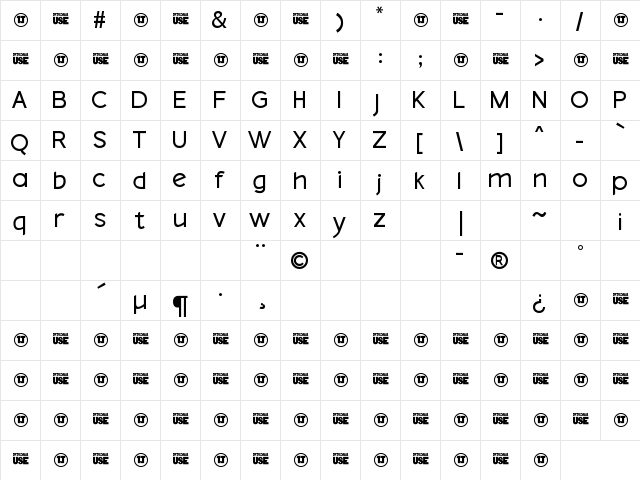
Dolgan Regular
| Foundry | LJ-Design Studios |
| Designer | Luis Jaramillo |
Design Context for Dolgan Typeface
Dolgan is a composed and adaptable typeface that performs quietly and consistently across a wide range of design contexts.